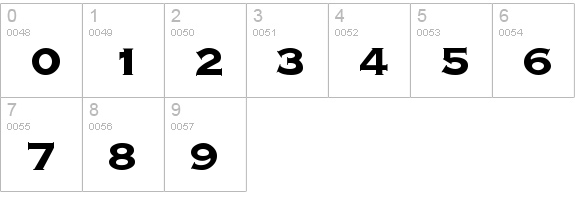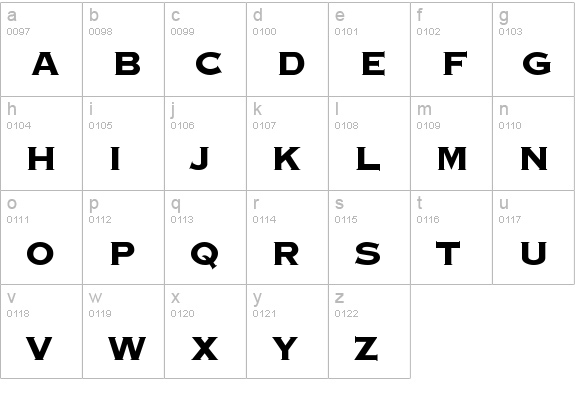
GraverplateExtrabold Regular Font Details
GraverplateExtrabold Regular is the standard, neutral variant in the GraverplateExtrabold typeface family \xE2\x80\x94 well suited to general body text, paragraphs, and standard typographic work.
GraverplateExtrabold Regular is a bold and commanding font that demands attention with its strong and powerful design. The thick strokes and sharp angles of this typeface exude confidence and authority, making it perfect for headlines, logos, and other display purposes. With its modern and sleek appearance, GraverplateExtrabold Regular is sure to make a statement and leave a lasting impression. The best part? This font is available for free download at FontsMarket.com, where you can easily access and use it for your personal or commercial projects. Don't miss out on this opportunity to add a touch of boldness to your designs with GraverplateExtrabold Regular!